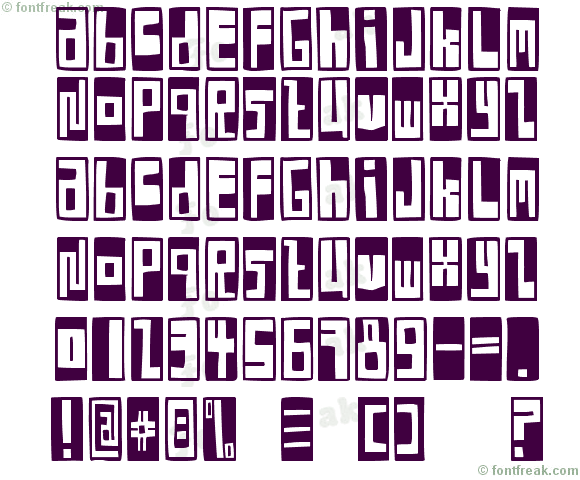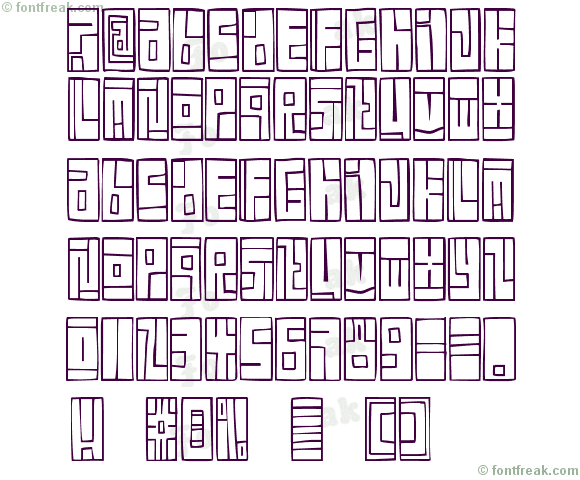
FE-BoxFont
FE-BoxFontNegative
About FE-BoxFont
FE-BoxFont is a striking display font designed by Font Environment, classified as a decorative typeface. Its unique geometric shapes and bold strokes create a modern yet playful aesthetic, making it perfect for various creative projects. The font features a consistent stroke weight, providing a sturdy presence, while the slightly rounded edges soften its overall look, adding an inviting charm. The spacing between characters is balanced, ensuring readability even at larger sizes, which enhances its versatility for both headlines and body text.
This font is particularly well-suited for use in eye-catching applications such as event posters, where it can draw attention and convey a sense of fun. Its distinctive style also makes it an excellent choice for branding initiatives, particularly for businesses aiming to project a modern and youthful image. Additionally, FE-BoxFont can elevate invitations for casual gatherings or parties, infusing them with a lively spirit. Small business owners in the creative sector will find this font invaluable for crafting engaging promotional materials, ensuring their message stands out amidst the competition.
What sets FE-BoxFont apart is its ability to combine boldness with approachability, making it a stellar choice for diverse applications. Whether used in digital or print formats, this font ensures that your designs command attention while remaining easy to read. For those looking to add a touch of character to their work, the FE-BoxFont font free download is an opportunity not to be missed.